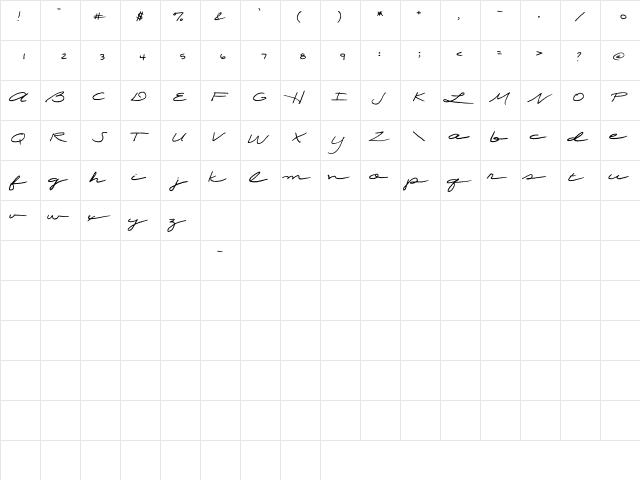
2Peas Piano Recital 2Peas Piano Recital Font Preview
2Peas Piano Recital 2Peas Piano Recital
2Peas Piano Recital 2Peas Piano Recital Font Details
| Style | 2Peas Piano Recital |
Design Context for 2Peas Piano Recital Typeface
2Peas Piano Recital is a composed and adaptable typeface that performs quietly and consistently across a wide range of design contexts.